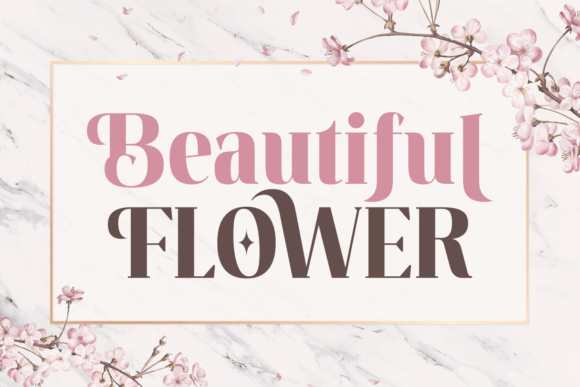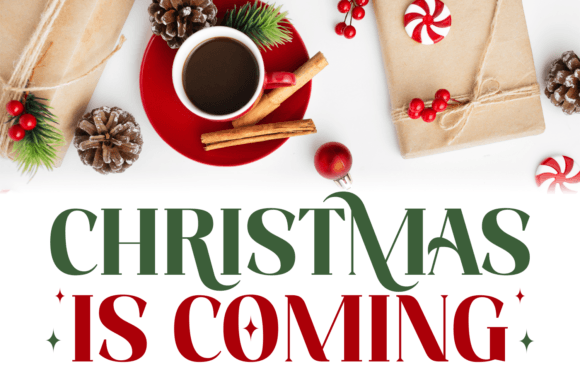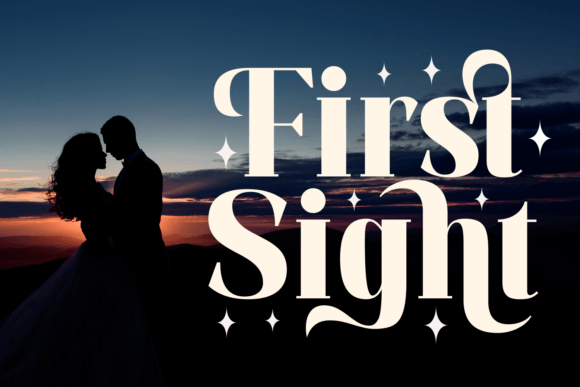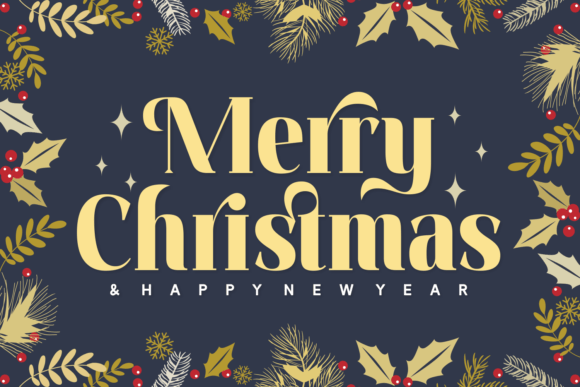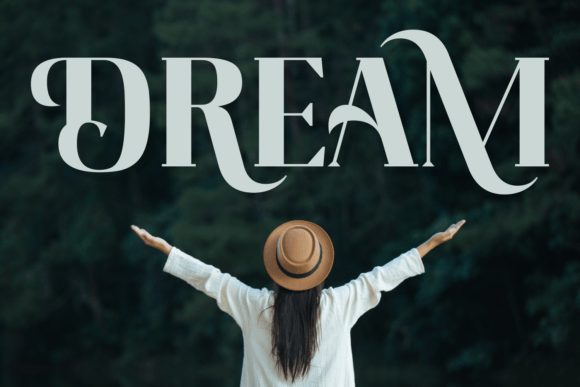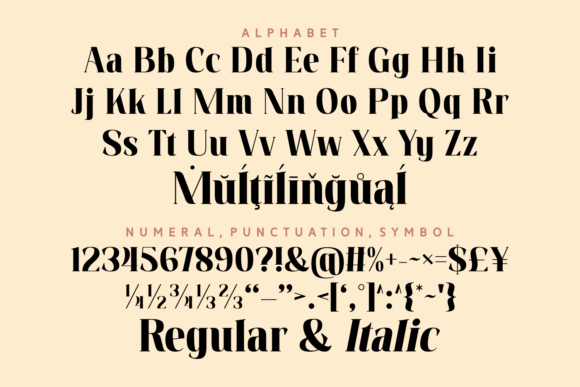
Introduction to Adorable Romance Font
Adorable Romance is a bold, stylish, and assertive serif font.
No matter the topic, this font will be an incredible asset to your fontsโ€™ library, as it has the potential to elevate any creation This font is PUA encoded which means you can access all the glyphs and ligatures with ease.
Key Features of Adorable Romance Font